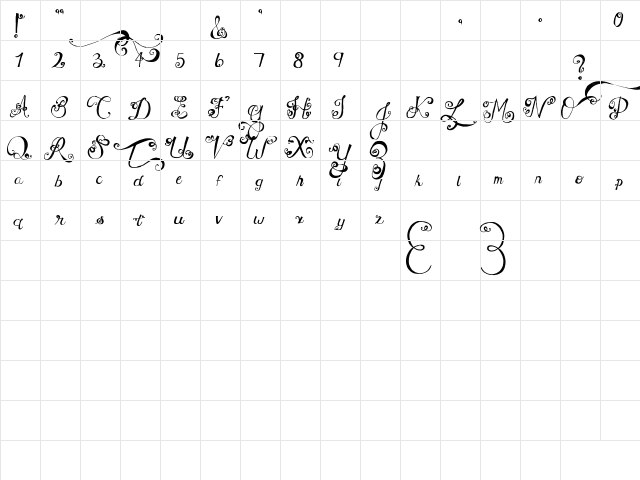
MTF Under Your Skin Regular
| Designer | Miss Tiina |
Design Context for MTF Under Your Skin Typeface
MTF Under Your Skin is a composed and adaptable typeface that performs quietly and consistently across a wide range of design contexts.